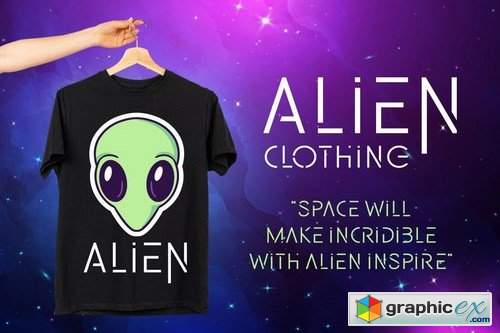
Space Time
This is perfect font for any modern design purpose like fashion, magazine, headline, web, logo, and clothing. It will turn any design project into an eye catcher.